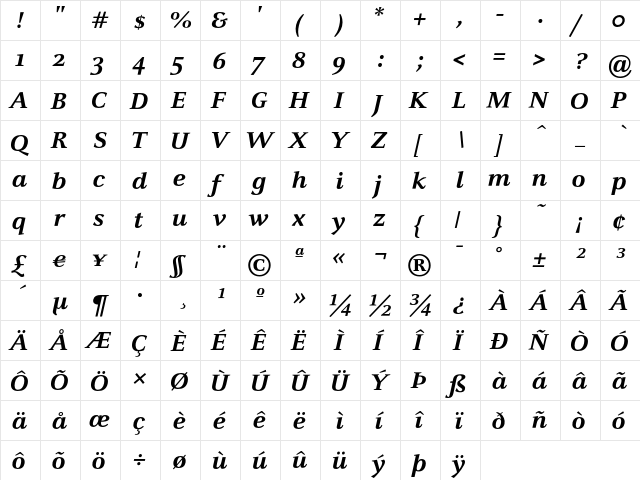
CelesteST BoldItalic
Design Context for CelesteST Typeface
CelesteST offers clean, dependable letterforms without strong stylistic allegiance, making it a practical choice for designers who need flexibility. Its italic angle brings a sense of urgency and motion to the letterforms. The heavy weight commands attention and anchors typographic hierarchies.
Pro Tip: Use CelesteST for emphasis, pull quotes, and subheadings where its slanted energy can add rhythm to the layout.